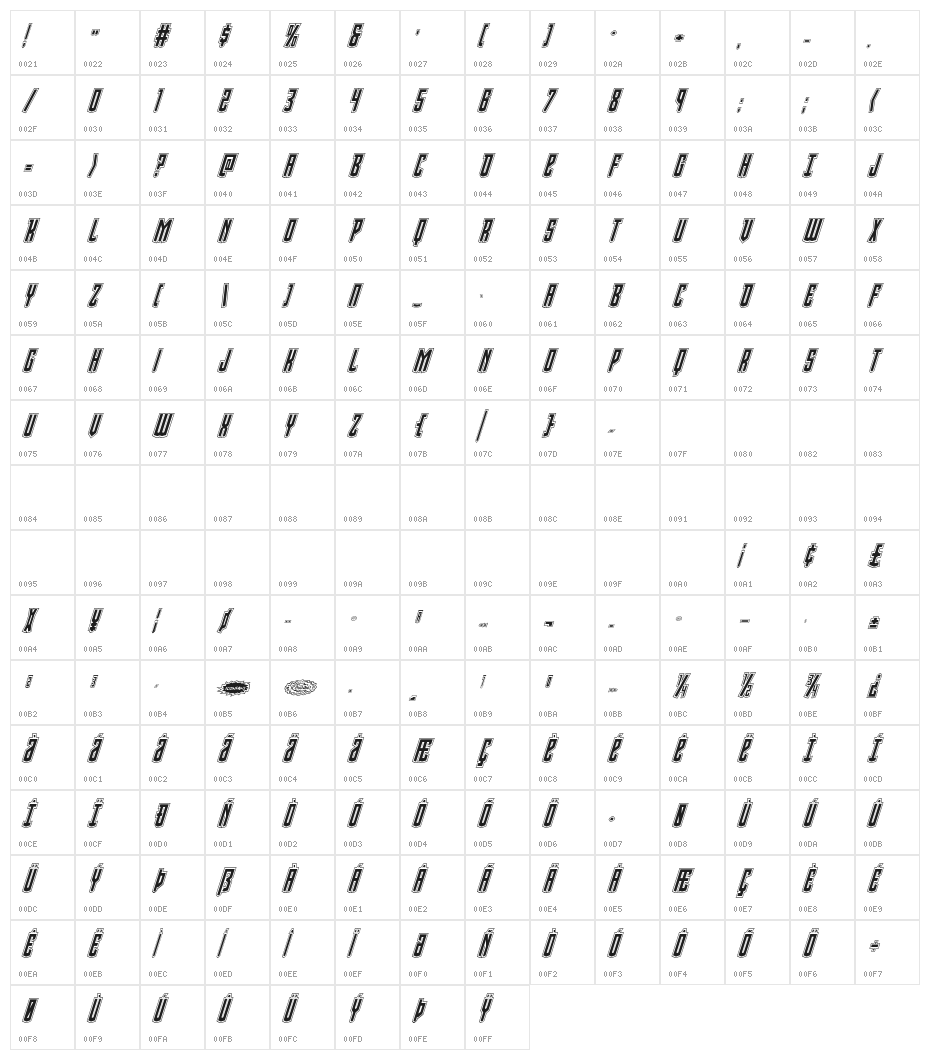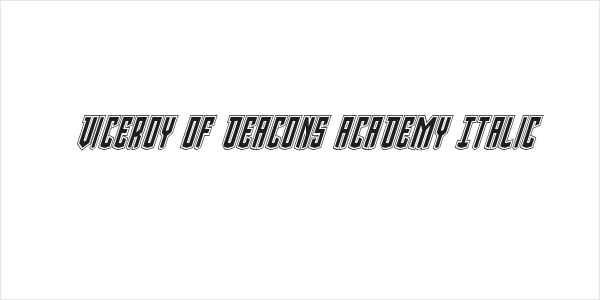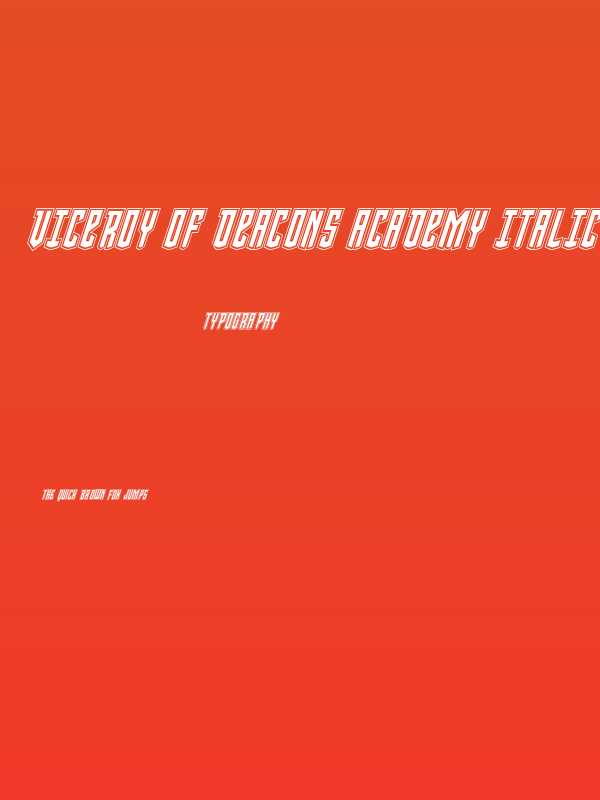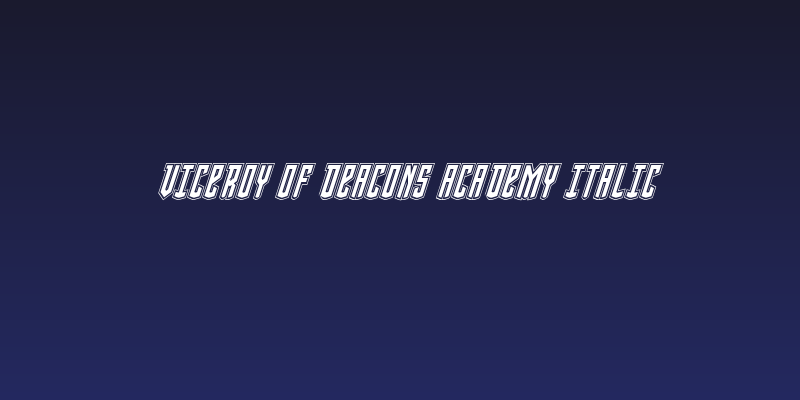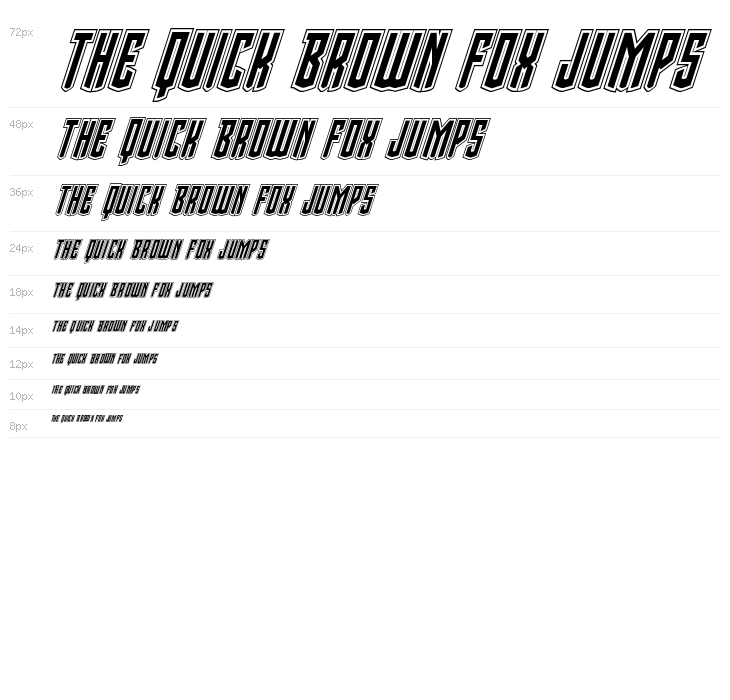
Viceroy of Deacons Academy Italic Font
Viceroy of Deacons Academy Italic Description
This font features a bold, dynamic style with a strong italic slant, giving it a sense of motion and energy. The characters are outlined, adding depth and a three-dimensional effect. The uppercase and lowercase letters maintain a consistent style, with sharp angles and clean lines. The numerals and special characters follow the same design principles, ensuring uniformity across all glyphs. This font is ideal for projects that require a striking and impactful visual presence.